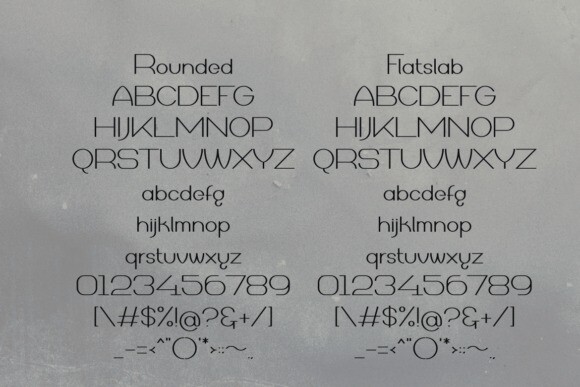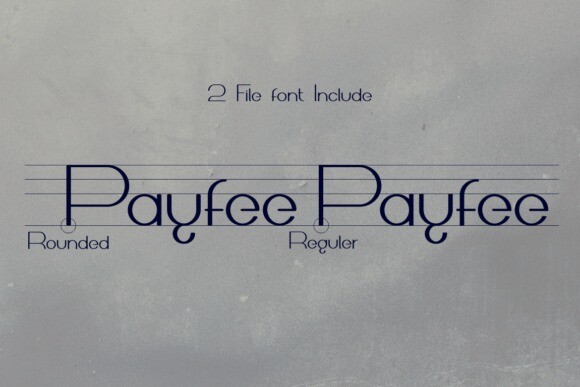
Payfee Font
is a font from the phenomenal sans serif family, this font can be found in many ways.
find the magic in your very spectacular work.
this font is not limited to anything.
choose the font that suits you, because choosing the right font will get extraordinary results.